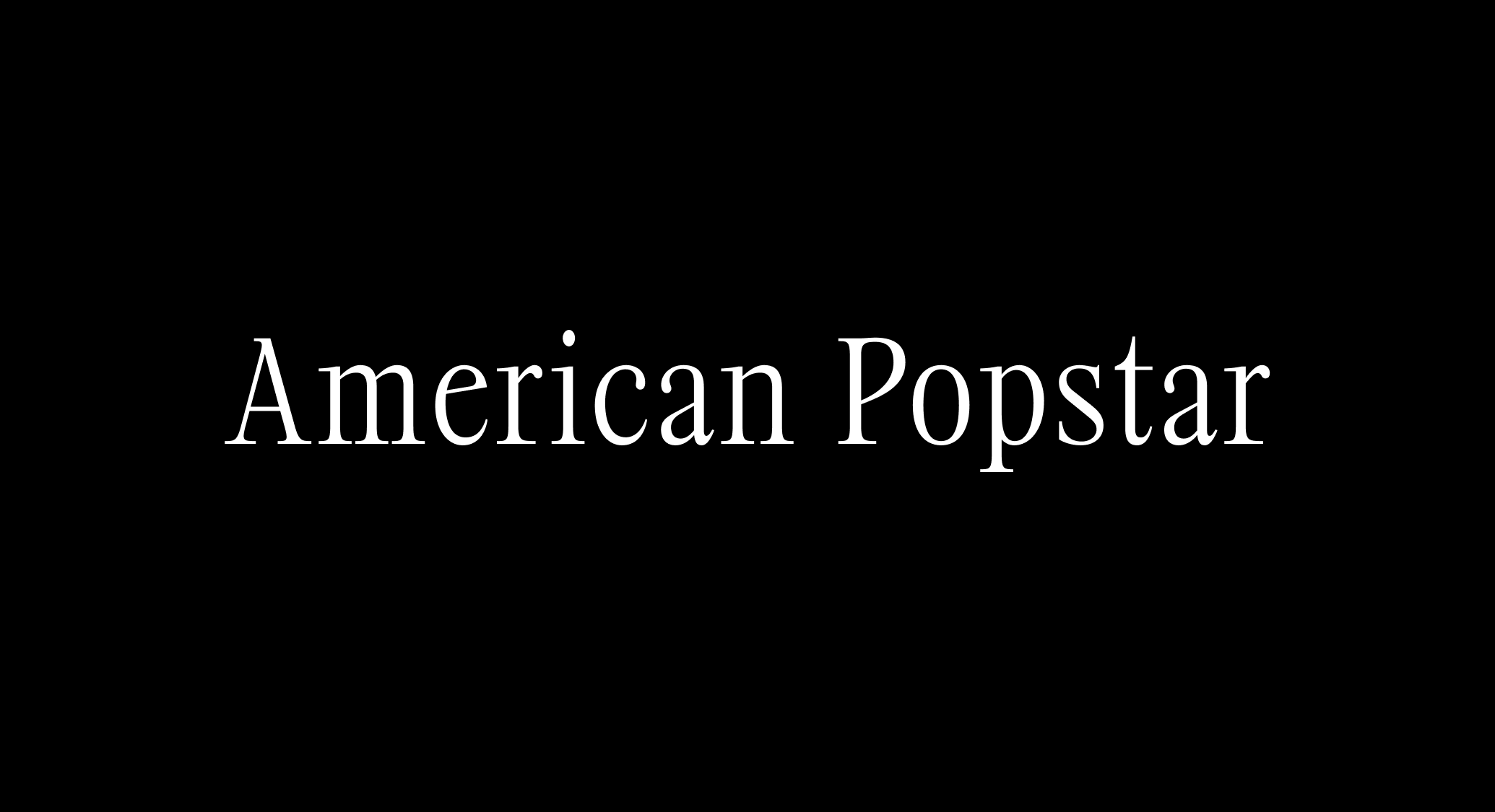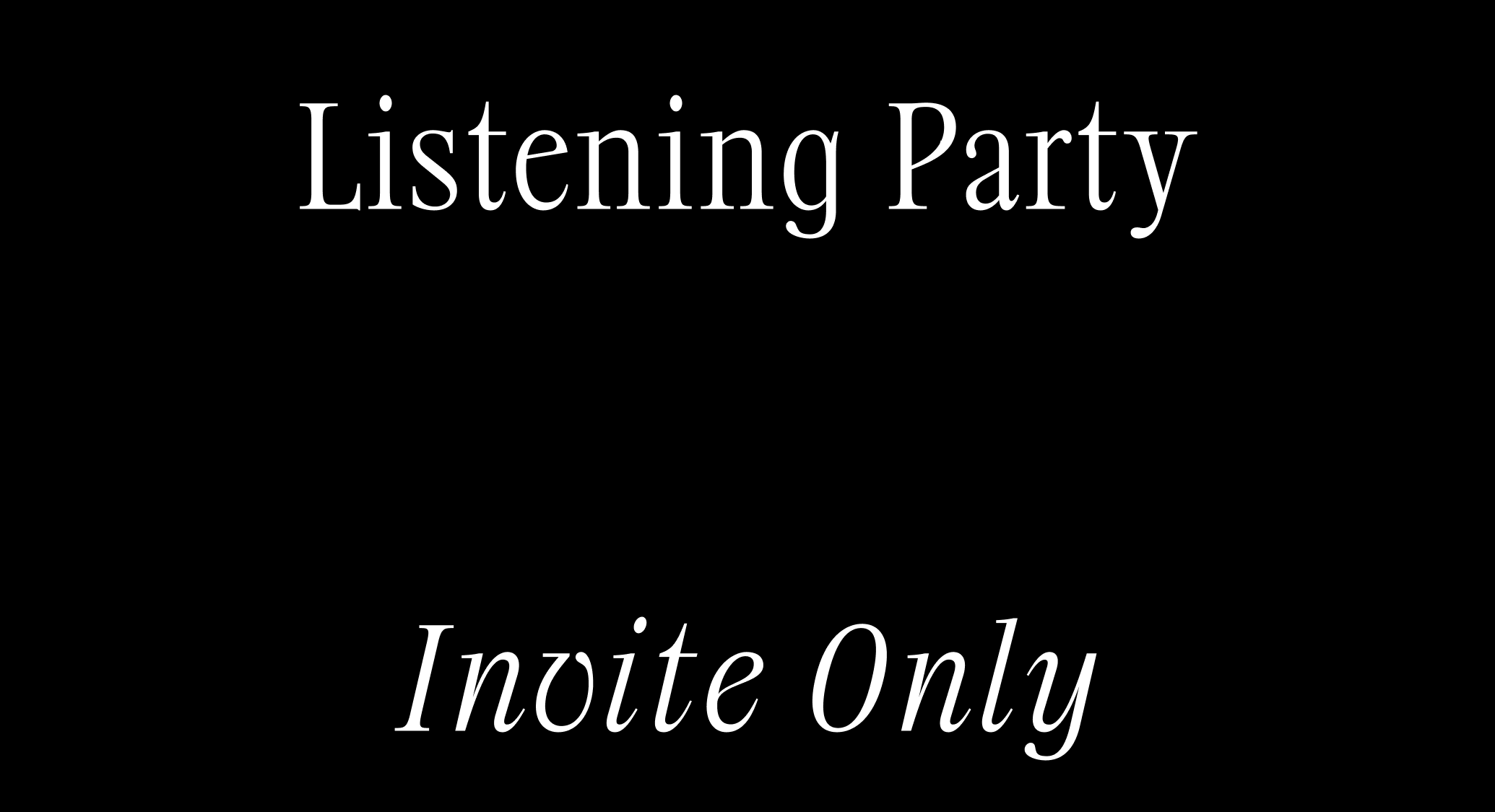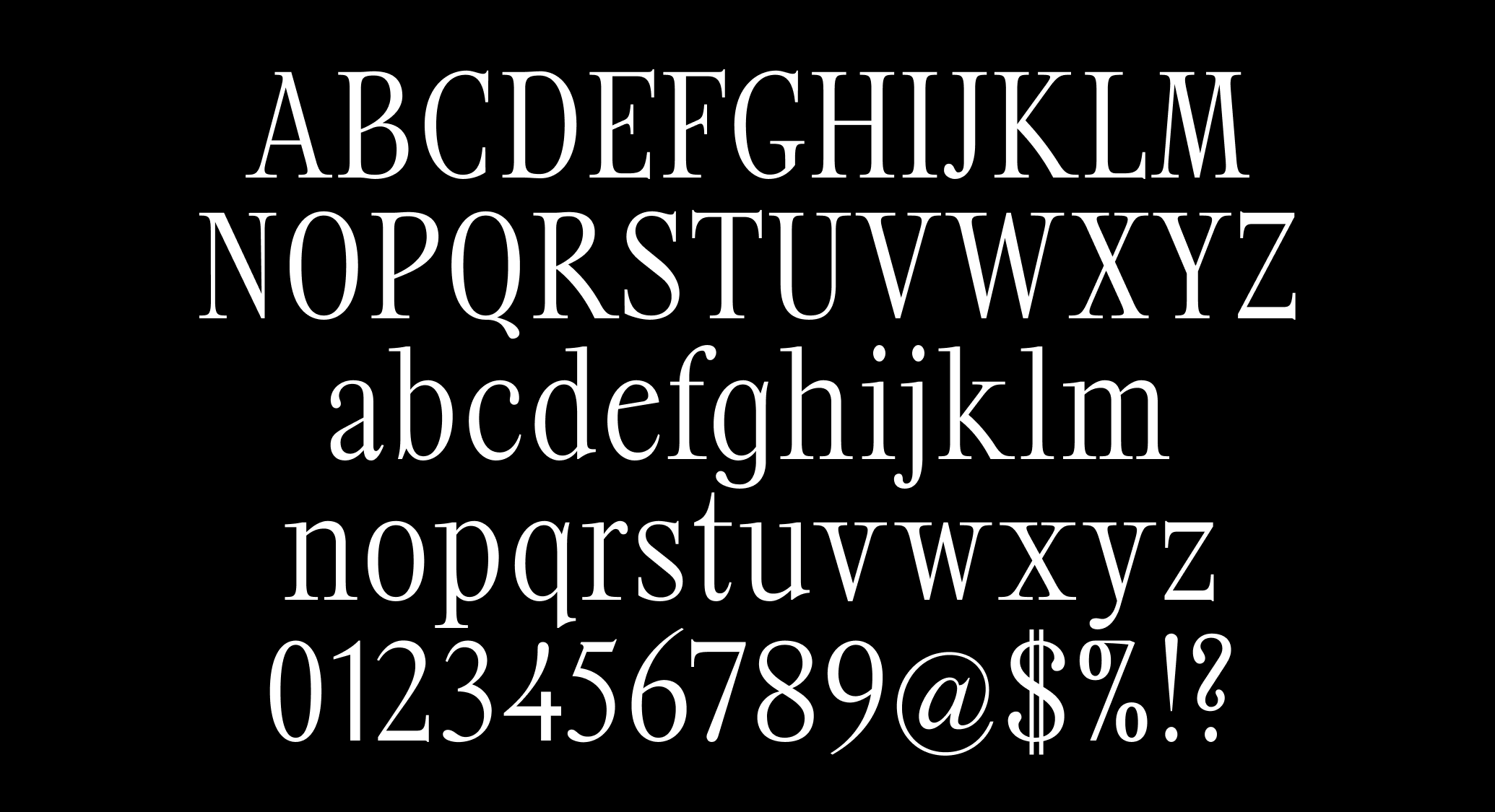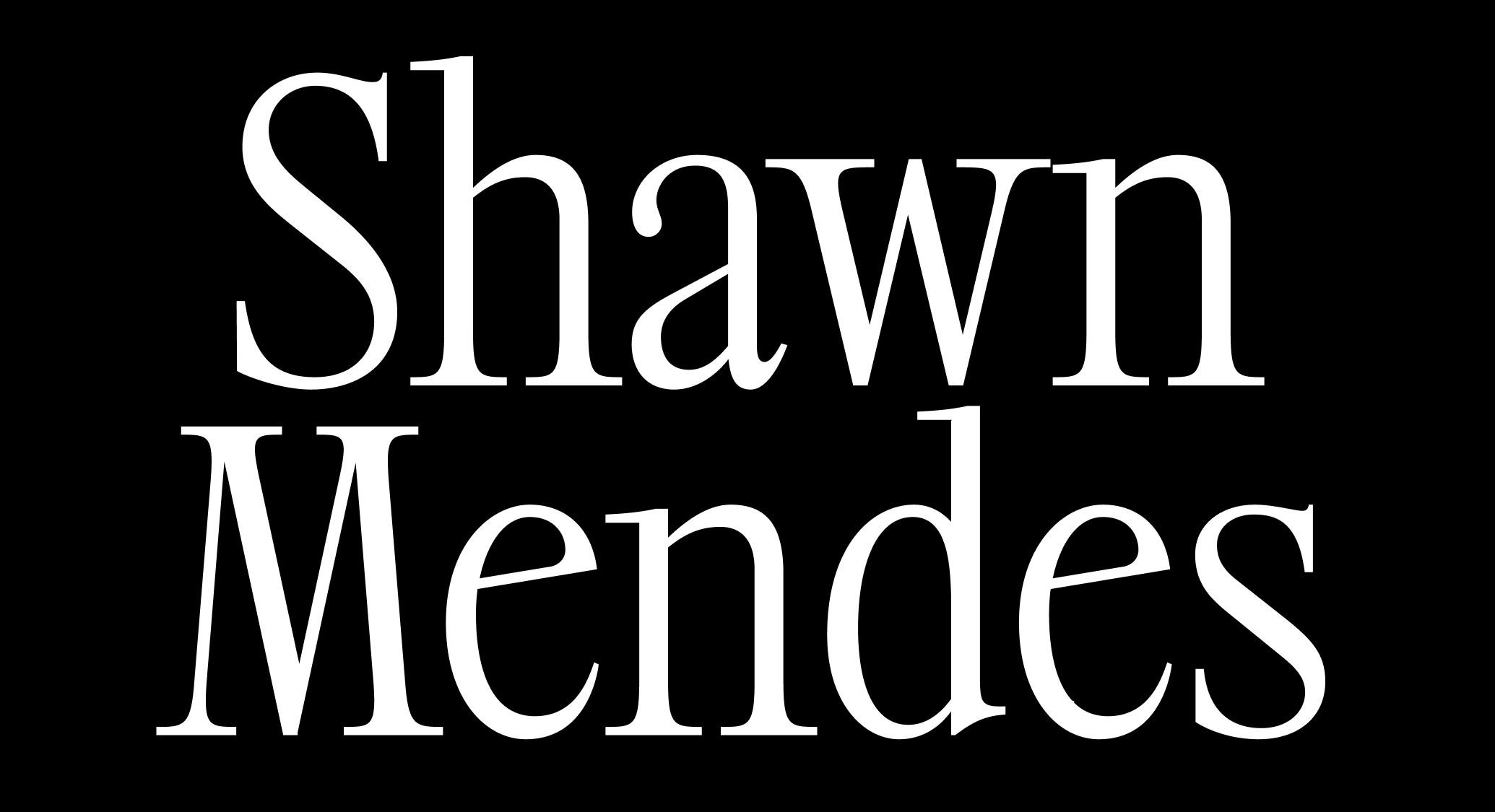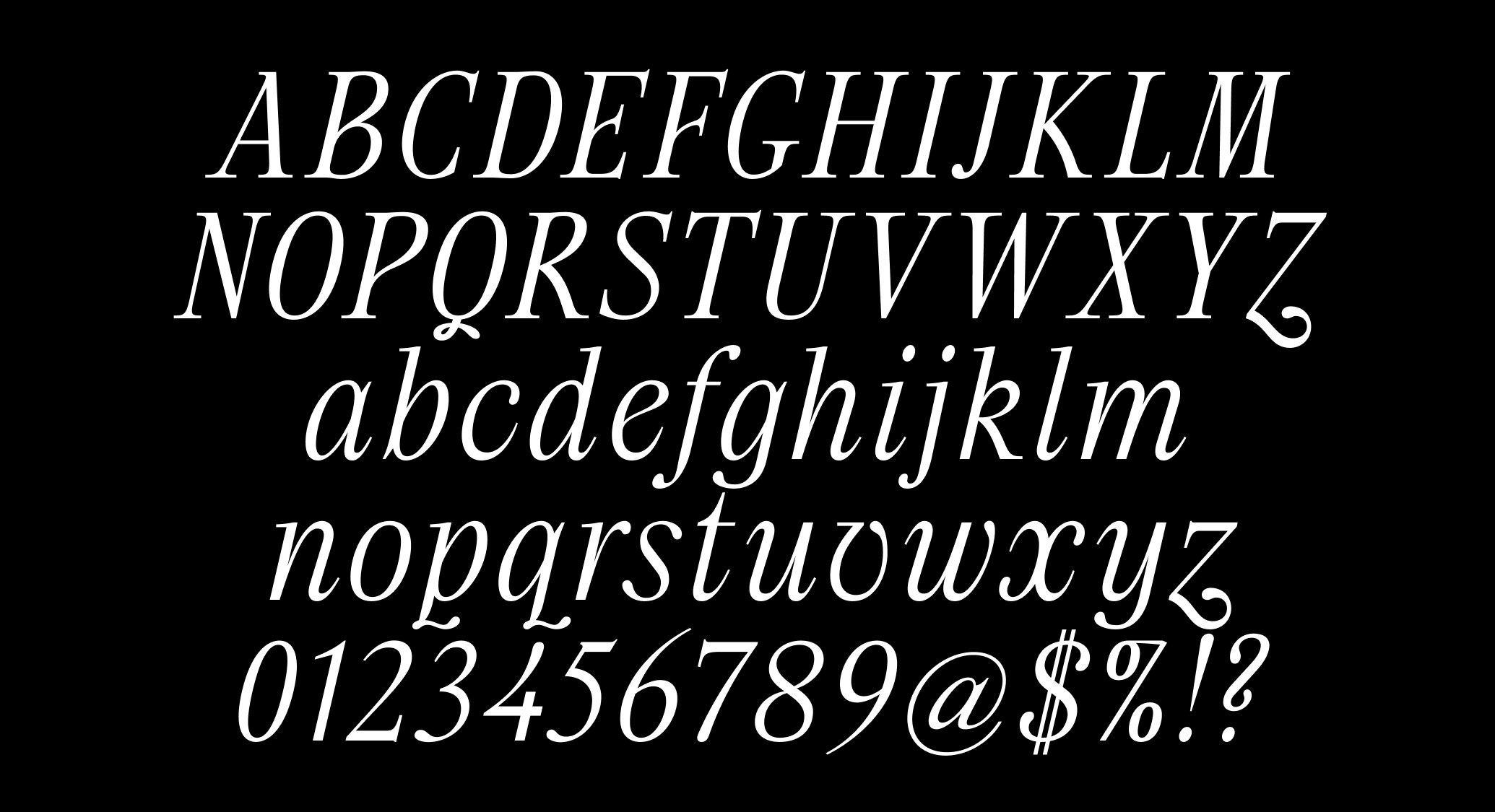
Shawn Mendes
Custom typeface for Shawn Mendes for his album ‘Shawn.’ Shawn’s team commissioned this typeface to deploy across all communications related to the album and its tour. Creative direction by Connor Brashier.